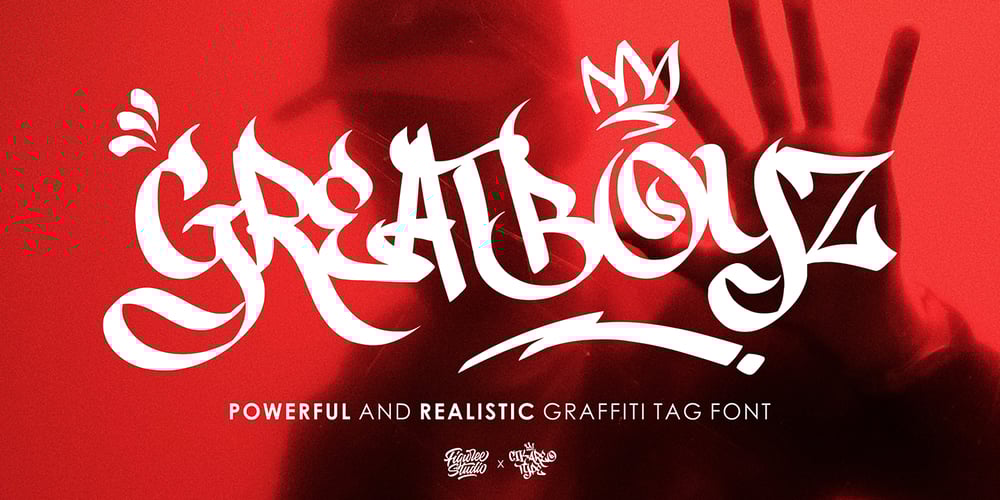
Greatboyz Font Family was designed by Icep Anwar Fadhil and published by Figuree Studio. Greatboyz contains 2 styles and family package options. Hello, this is Graetboyz – Realistic Graffiti Tag Font!This font was designed so that users can use it more easily and make graffiti designs easier. Greatboyz is very suitable for use in various media such as; packaging, logos, labels, posters, shirt designs, bulletins, typography, and many other media, especially with graffiti look.Features: Uppercase & Lowercase PUA Encoded open Support for MAC or PC Simple installation for Adobe Illustrator, Corel Draw, Photoshop, or Procreate (New Updated) Bonus Swash That’s it! If you have any questions don’t hesitate to ask!Stay Classy!